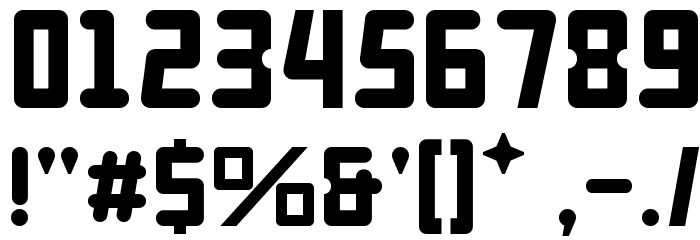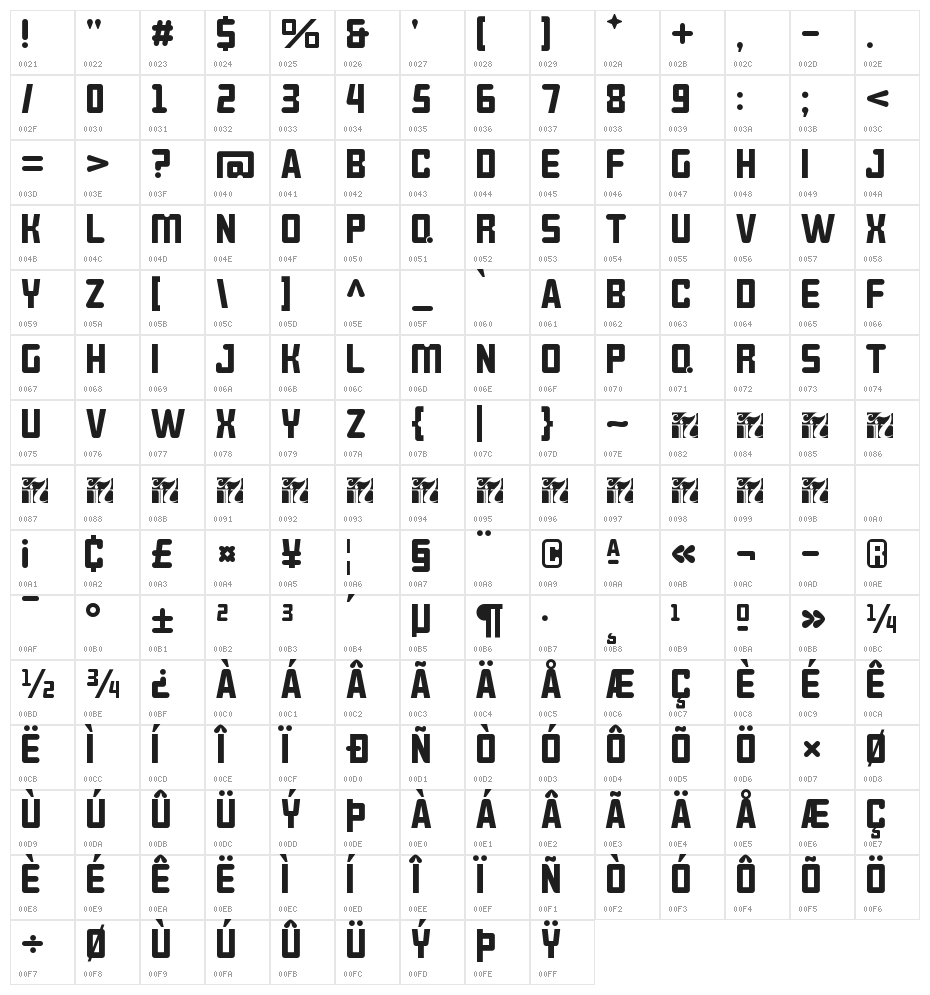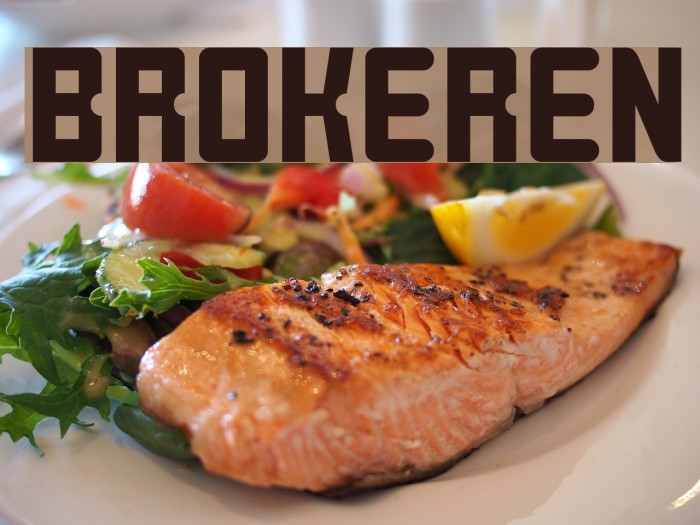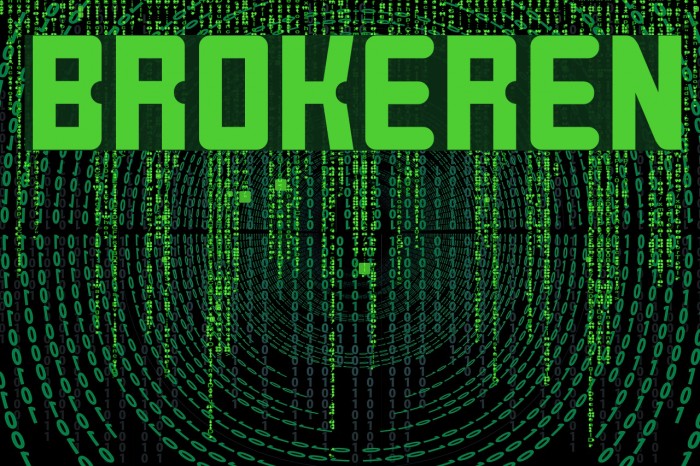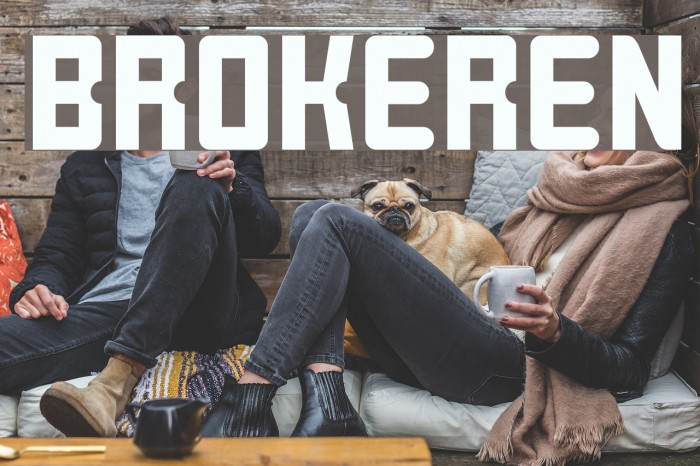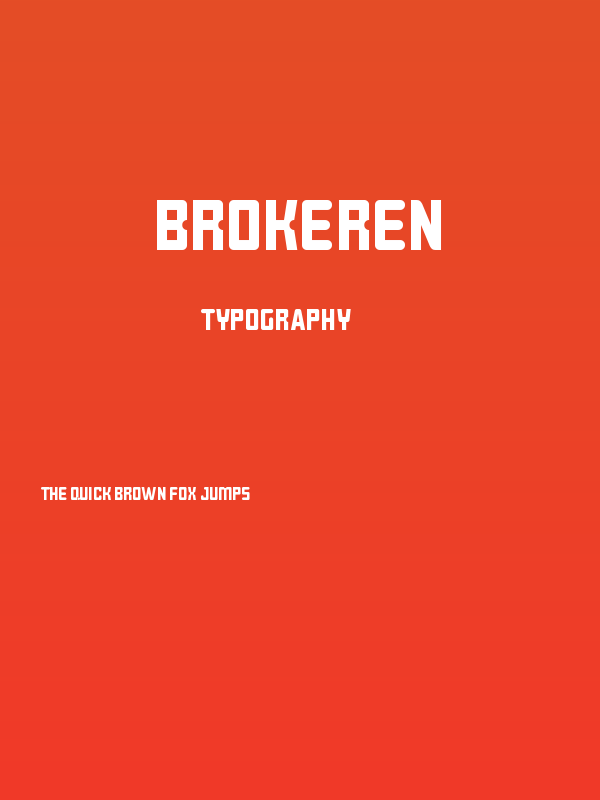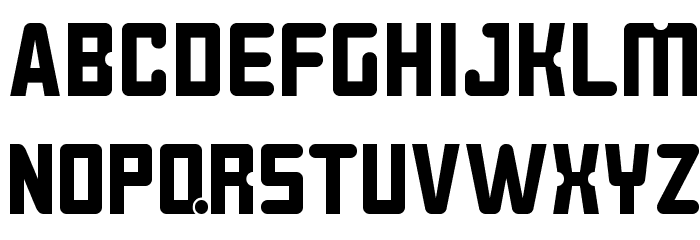
BROKEREN Font
BROKEREN Description
This font features a bold and geometric design with a modern twist. The characters are constructed with thick, uniform strokes, creating a strong visual impact. The use of rounded corners adds a touch of softness to the otherwise robust appearance. The font includes a full set of uppercase letters, numerals, and a variety of special characters, making it versatile for different design needs. Its distinct style is ideal for projects that require a contemporary and assertive look.
| Proposed Projects | Ideal for branding, headlines, posters, and signage where a strong, modern presence is desired. |